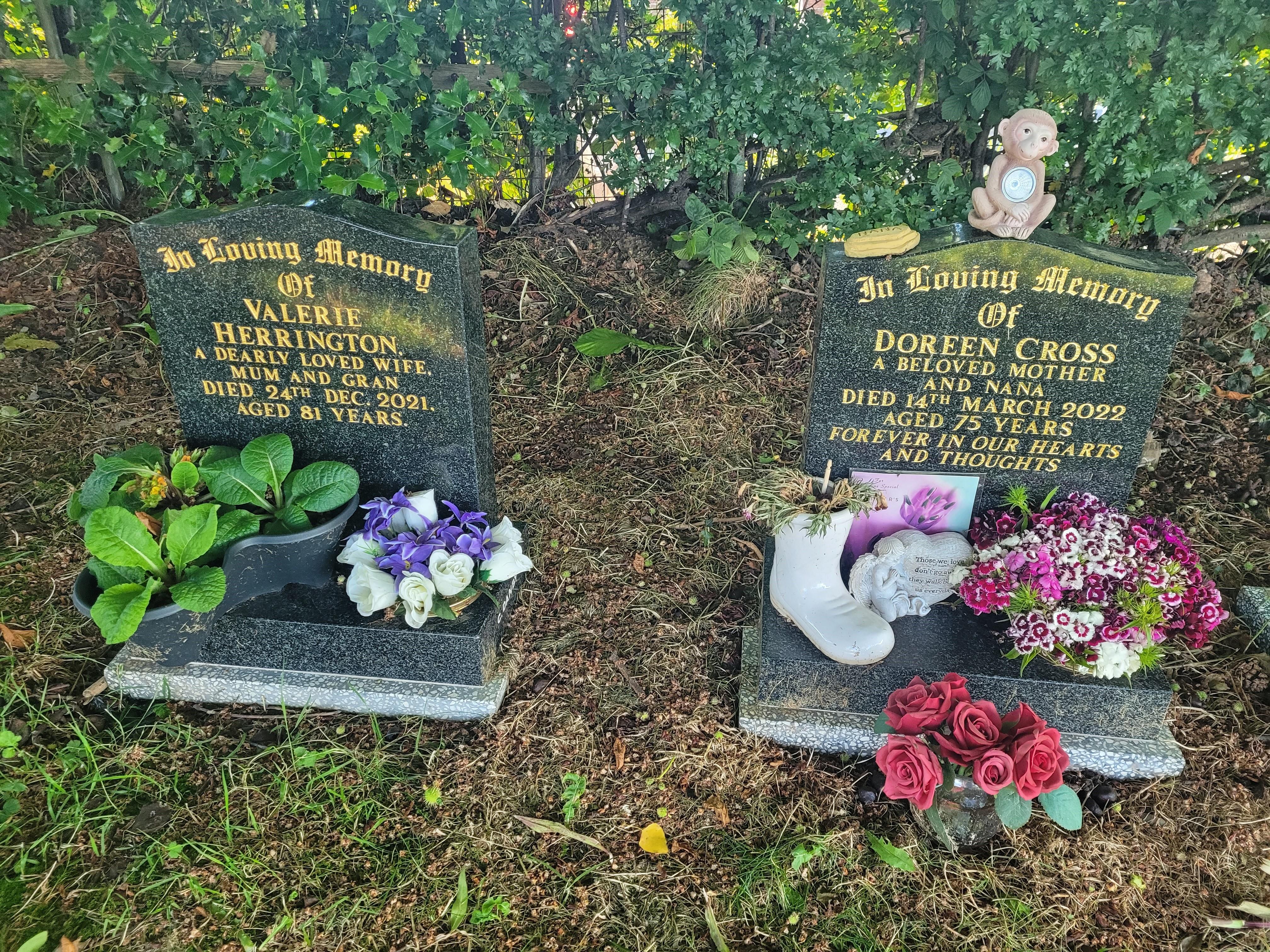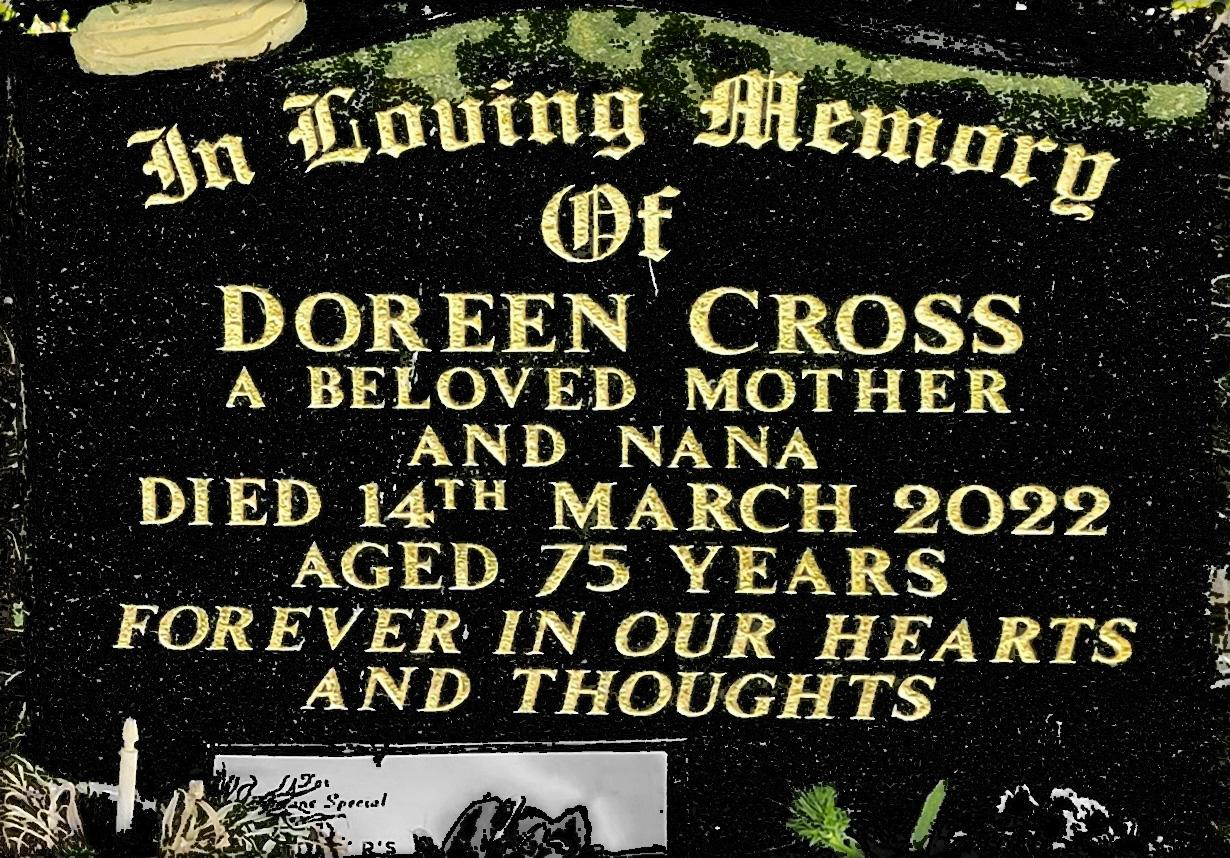
Weird numbers on memorial
The old english and roman lettering is fine for the stones below but I am struggling to find the numbers! The descender on the 7 is quite odd and the curls on the 2 should make it stand out but I can’t find them. Any help is appreciated!
Hello, this font has a bit of an unclear history, but it is a version of Times New Roman Bold that has been given alternate numbers, and typically used in the UK. There is a version of it with these numbers available in the Monu-Cad software, but it was not likely designed by Monu-Cad and was likely included at the request of one of their early UK users. There are almost certainly other versions of the font available in other memorial design software that are more popular in the UK than Monu-Cad. It is not available commercially as a TrueType or OpenType font.